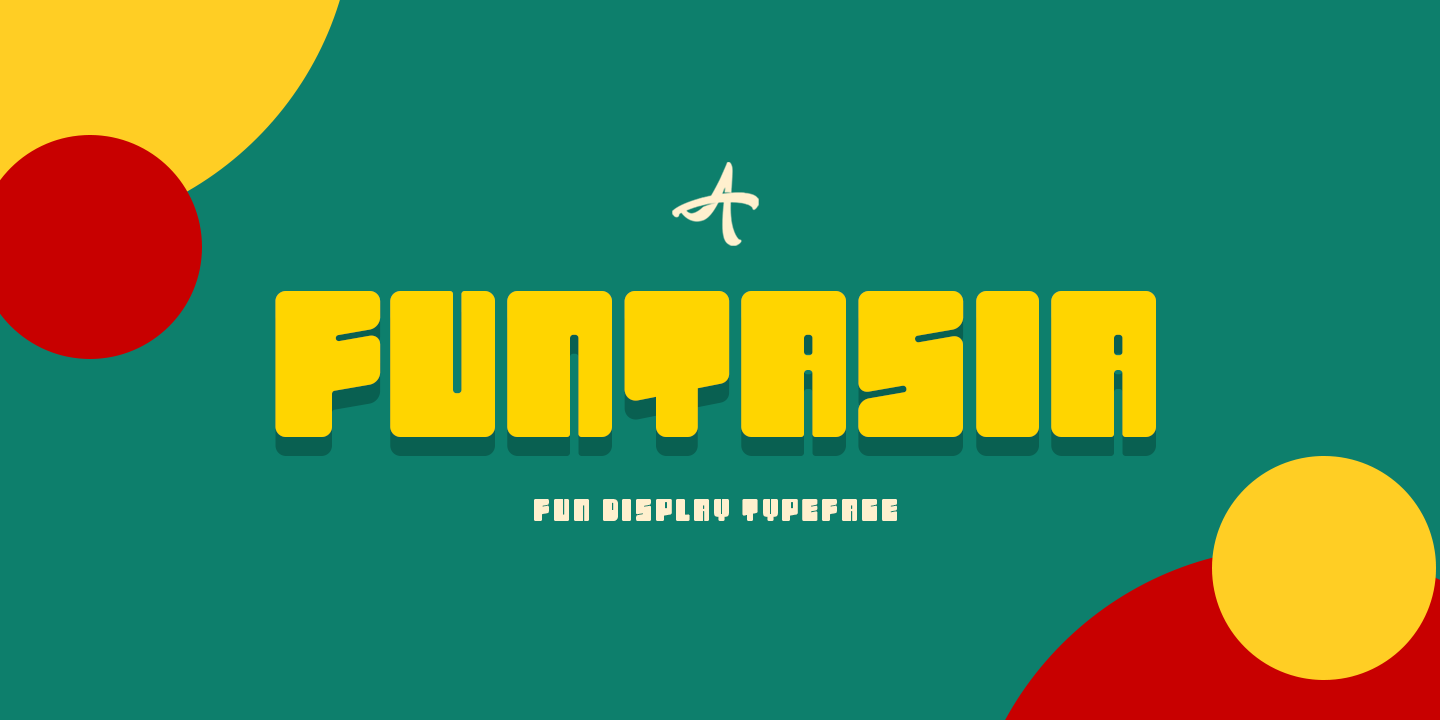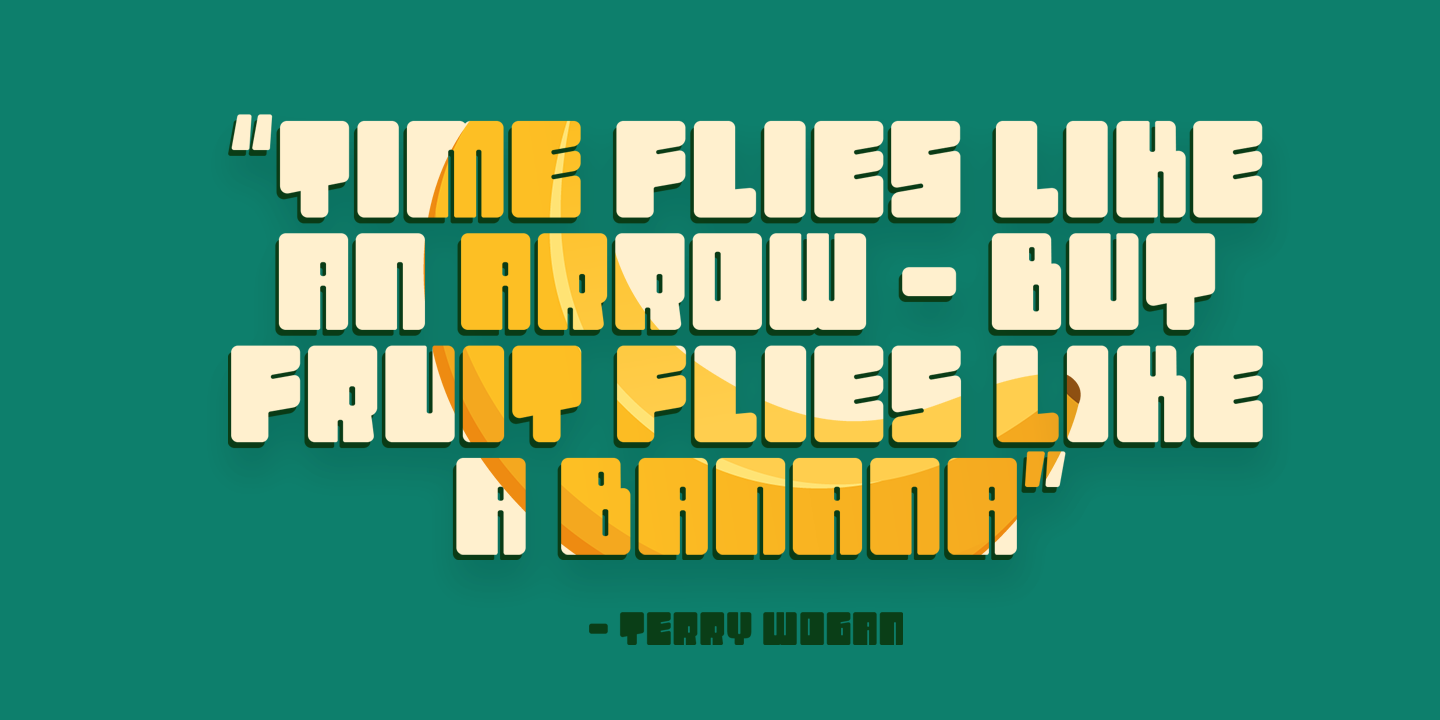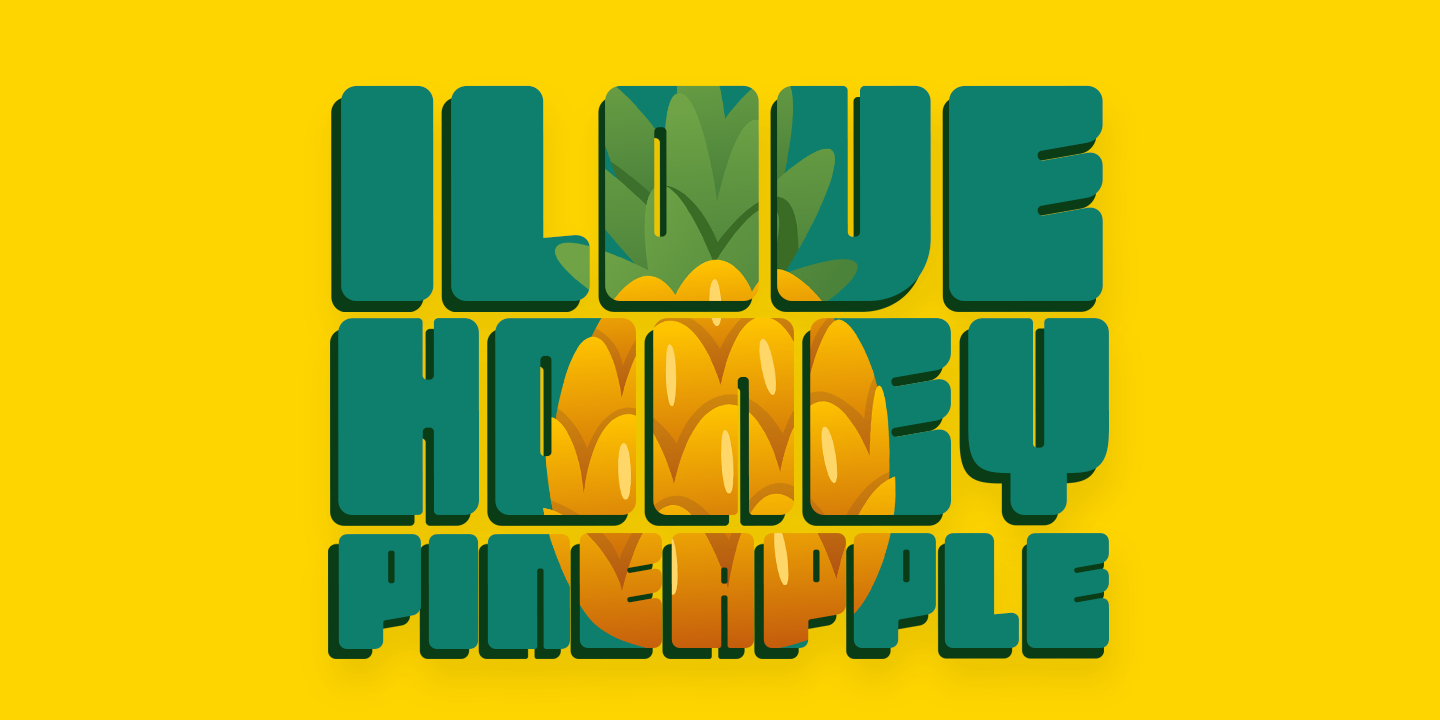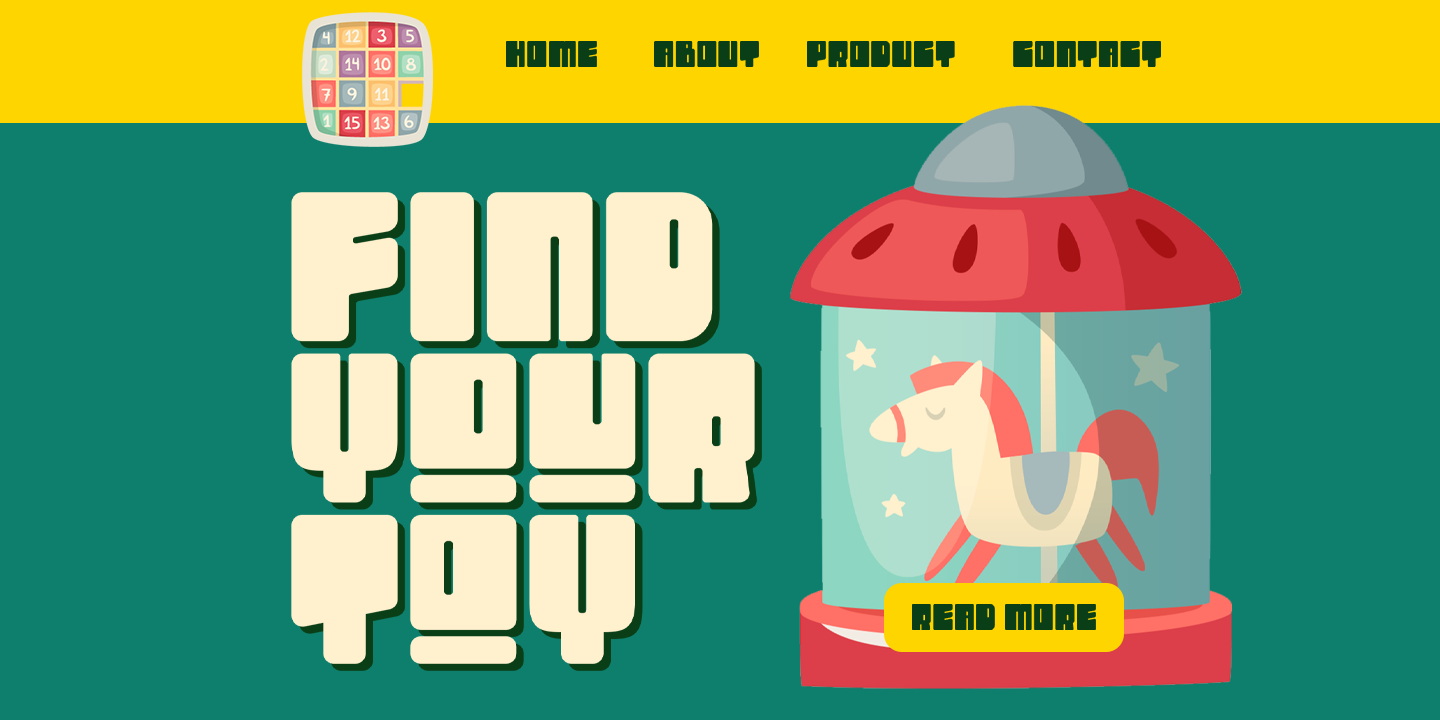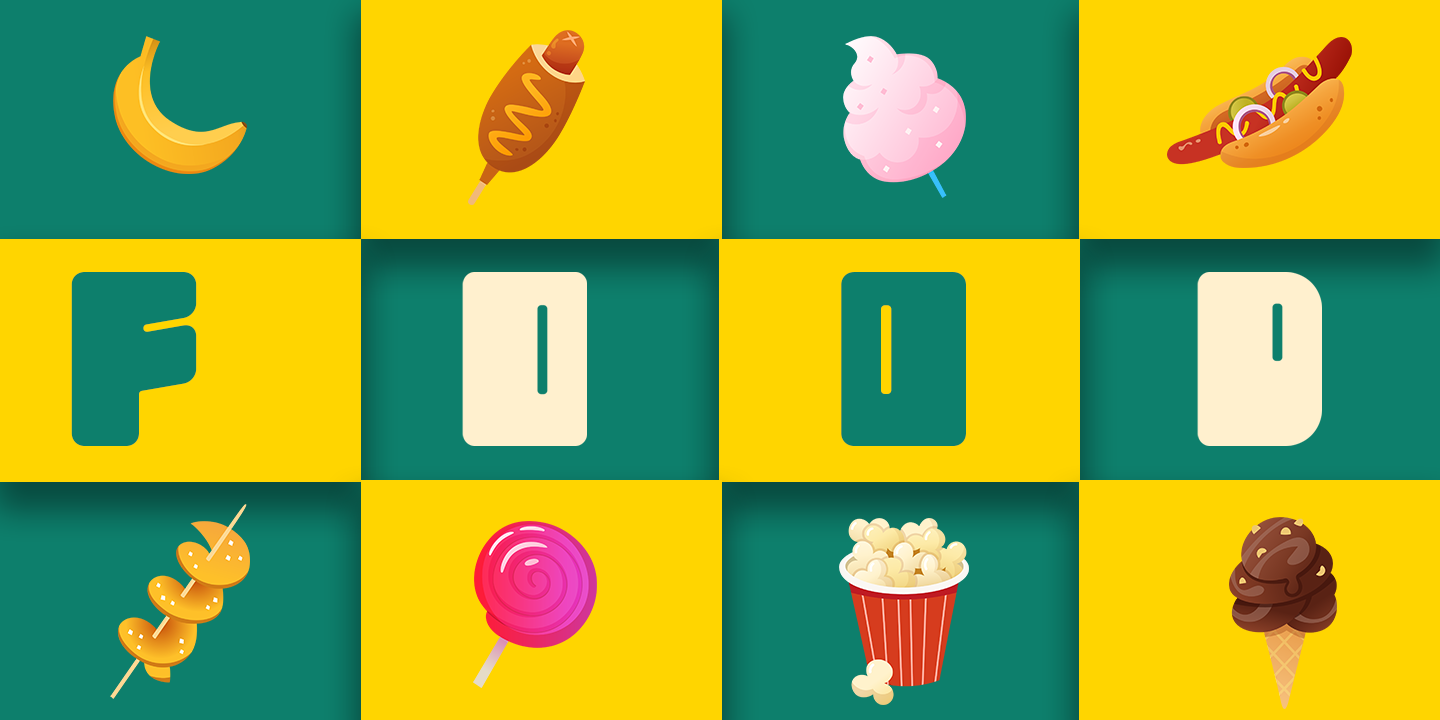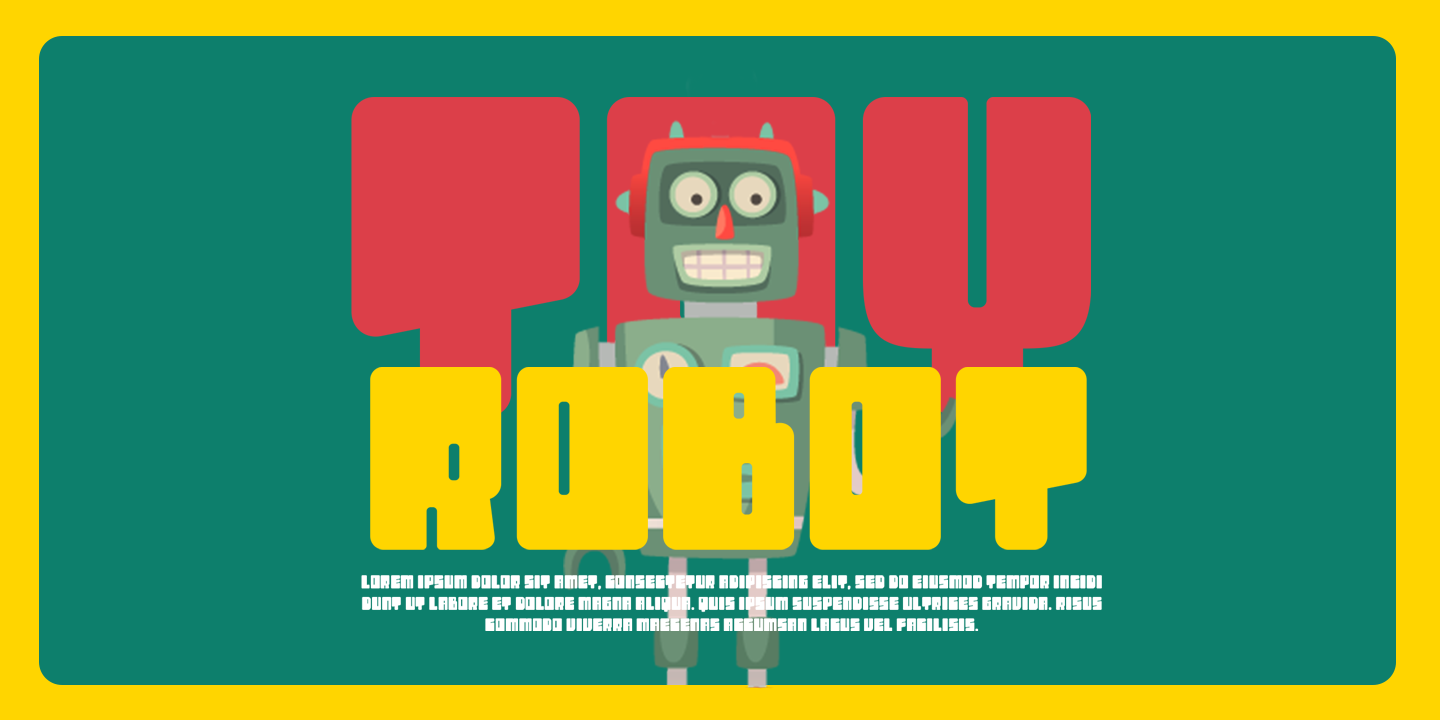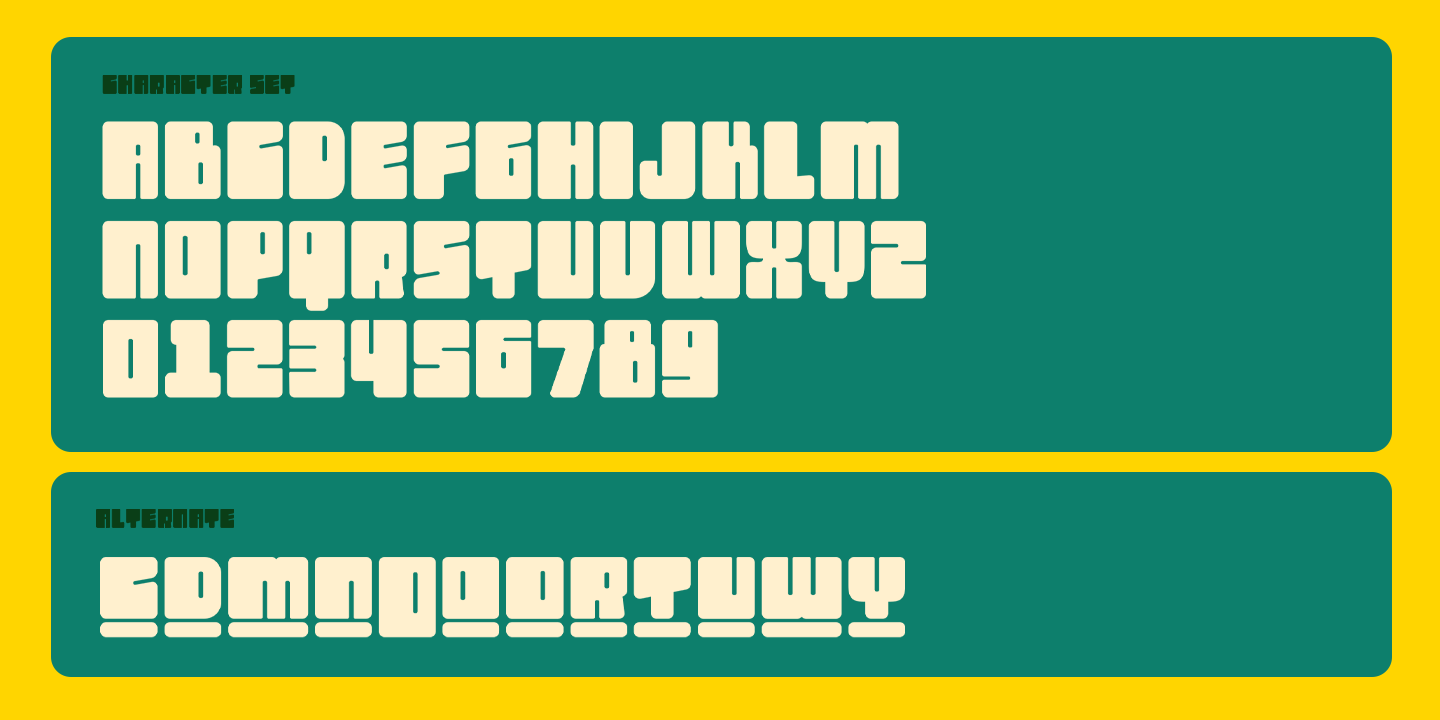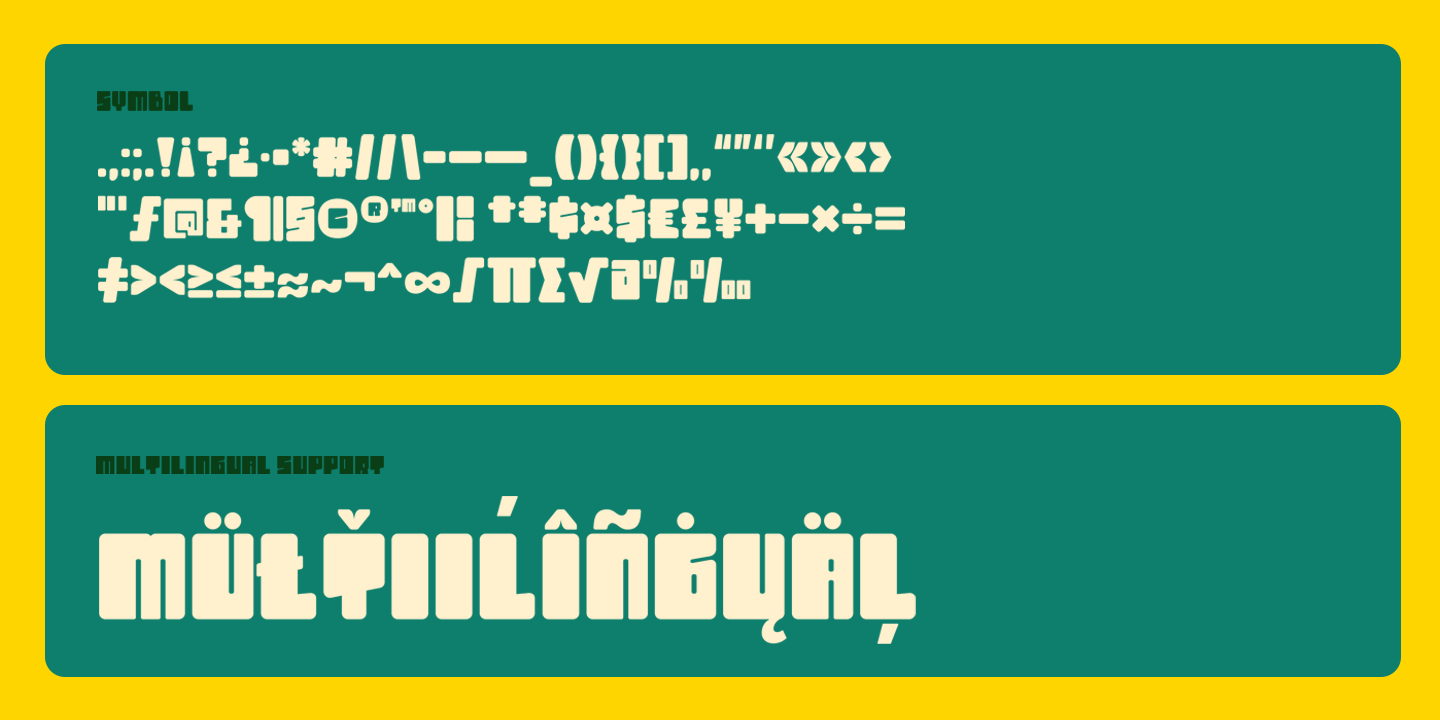
Funtasia
introduces Funtasia Typeface Style which has a unique and very strong character that makes all designs look unique and have a modern feel. Funtasia Typeface has its own charm, so it will be very suitable to be combined with any style. Has Lots of Alternatives and binders to add a great interactive feel to any design. Funtasia Typeface also comes with multilingual support and is very easy to use. Funtasia Typeface is interesting to use in designs such as books, movie posters, logos, branding, business cards, and others that can be combined with Funtasia Typeface.